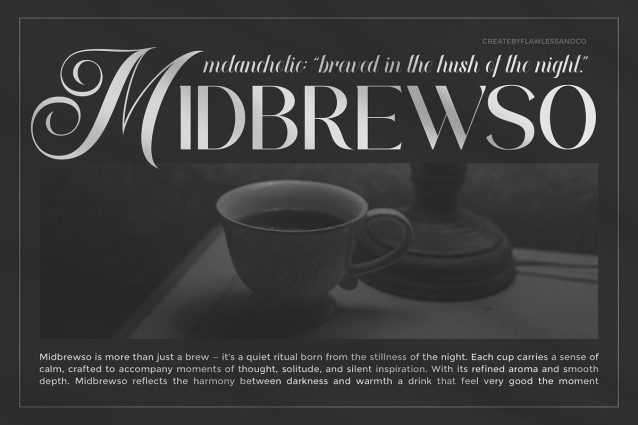
Bestira Script Font Duo
Bestira Script Font Duo is a luxury duo typeface that harmoniously blends the grace of an elegant serif with the sophistication of a refined script. Designed to embody both timeless charm and modern luxury, Bestira creates a seamless balance between soft curves and confident structure. Each character is crafted with meticulous detail—delivering high contrast, fluid strokes, and graceful precision. Whether used together or separately, the serif and script styles of Bestira elevate any design with effortless refinement and beauty. Perfect for designers seeking elegance, sophistication, and lasting visual impact.